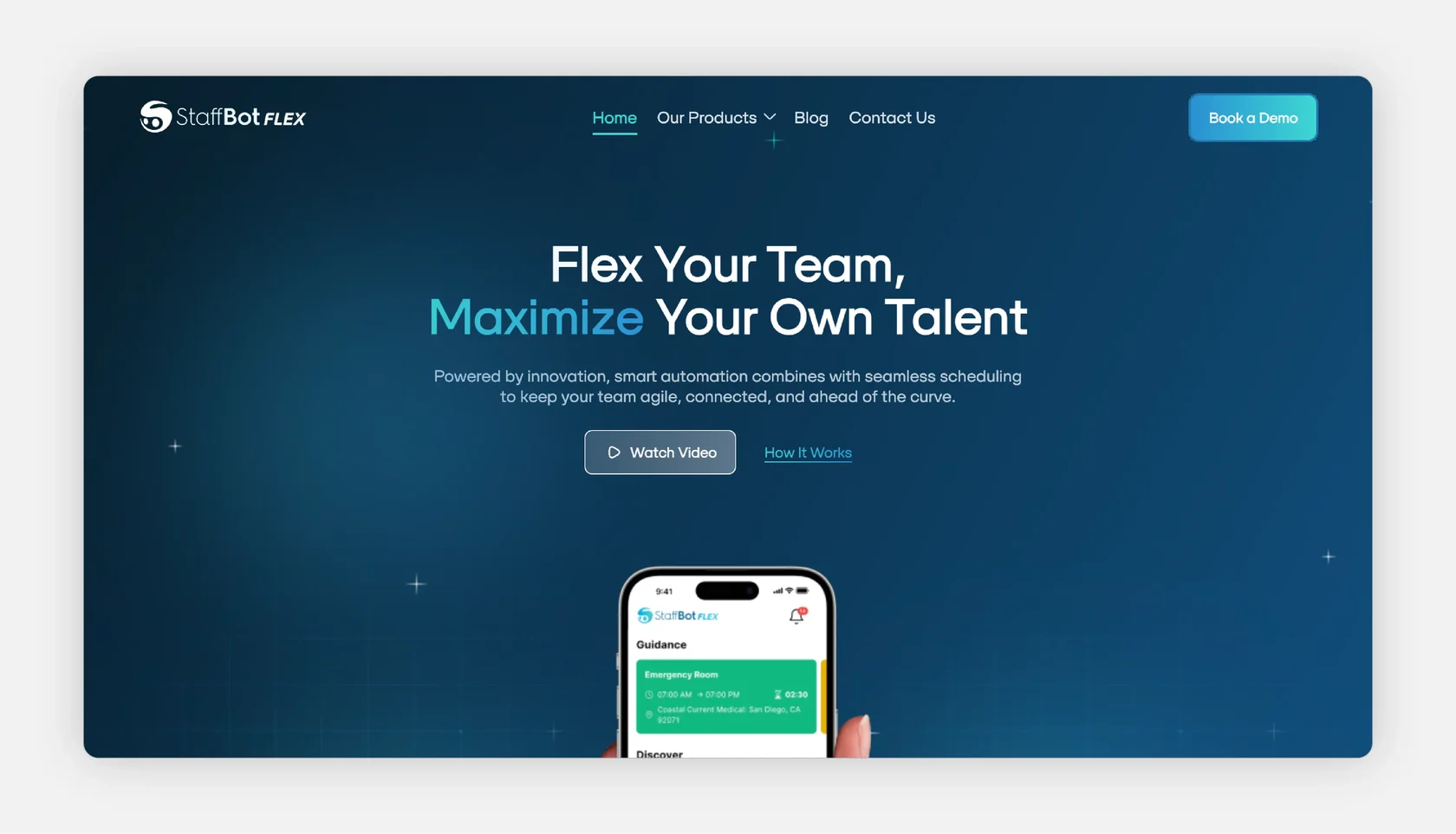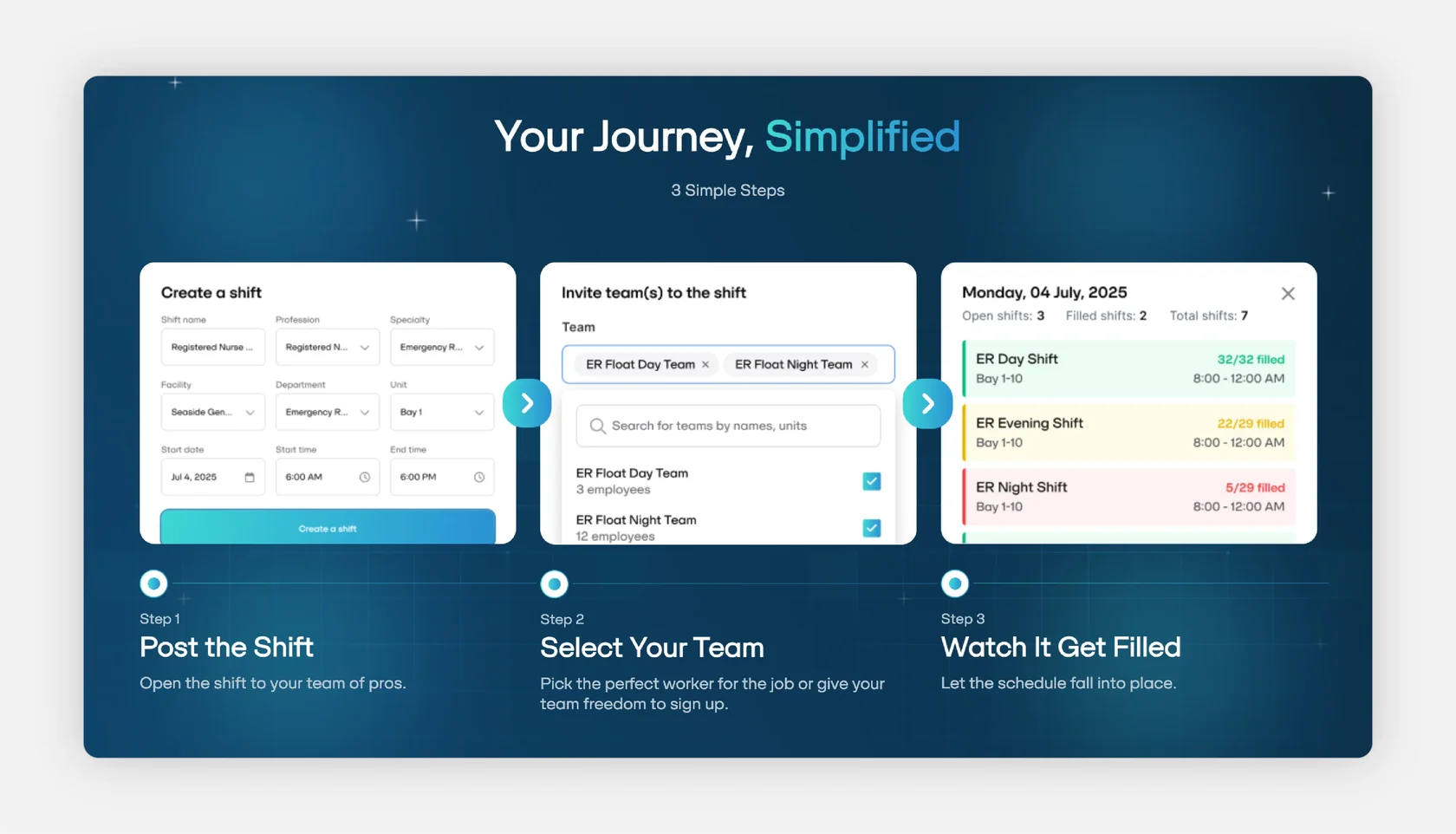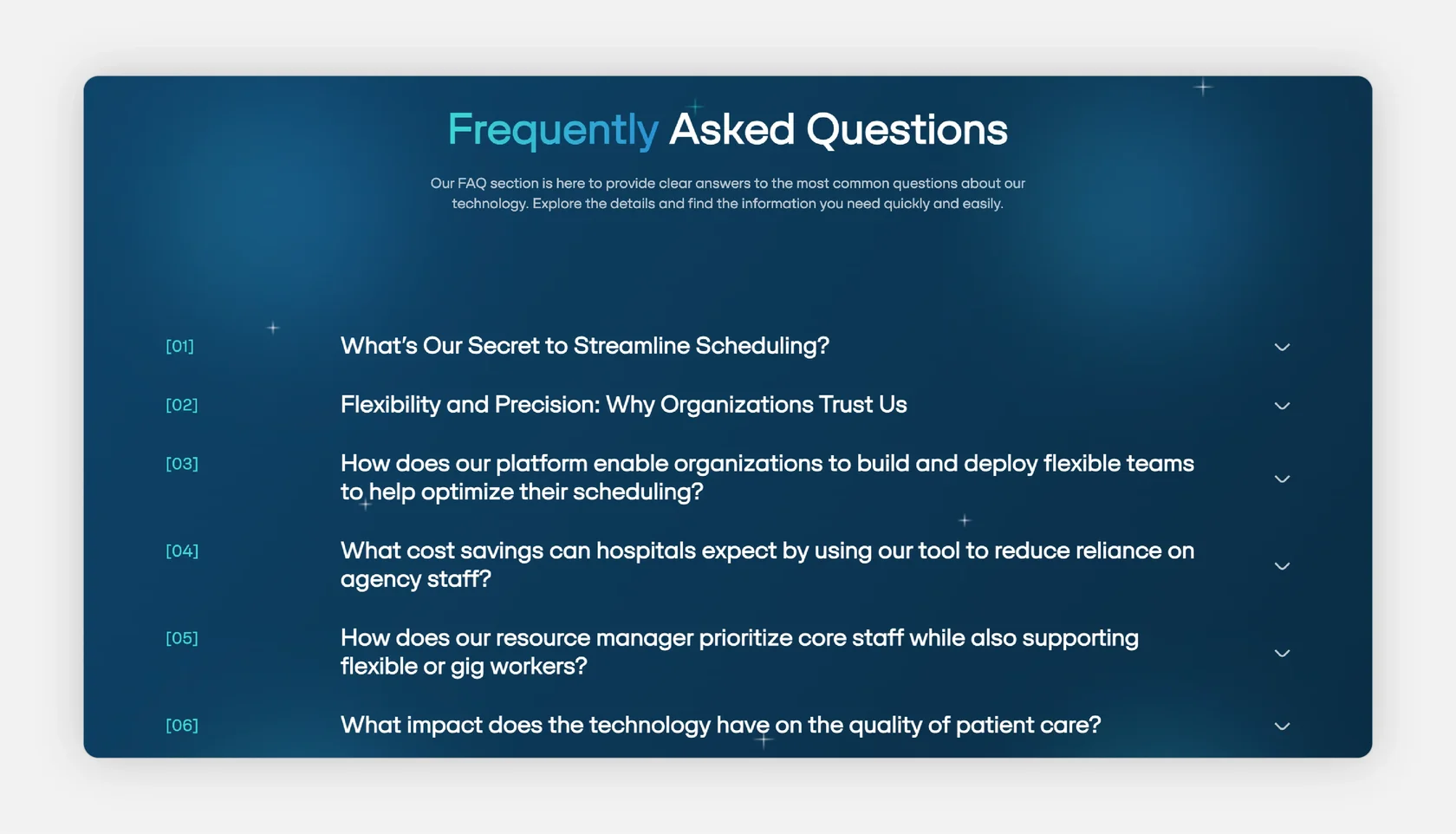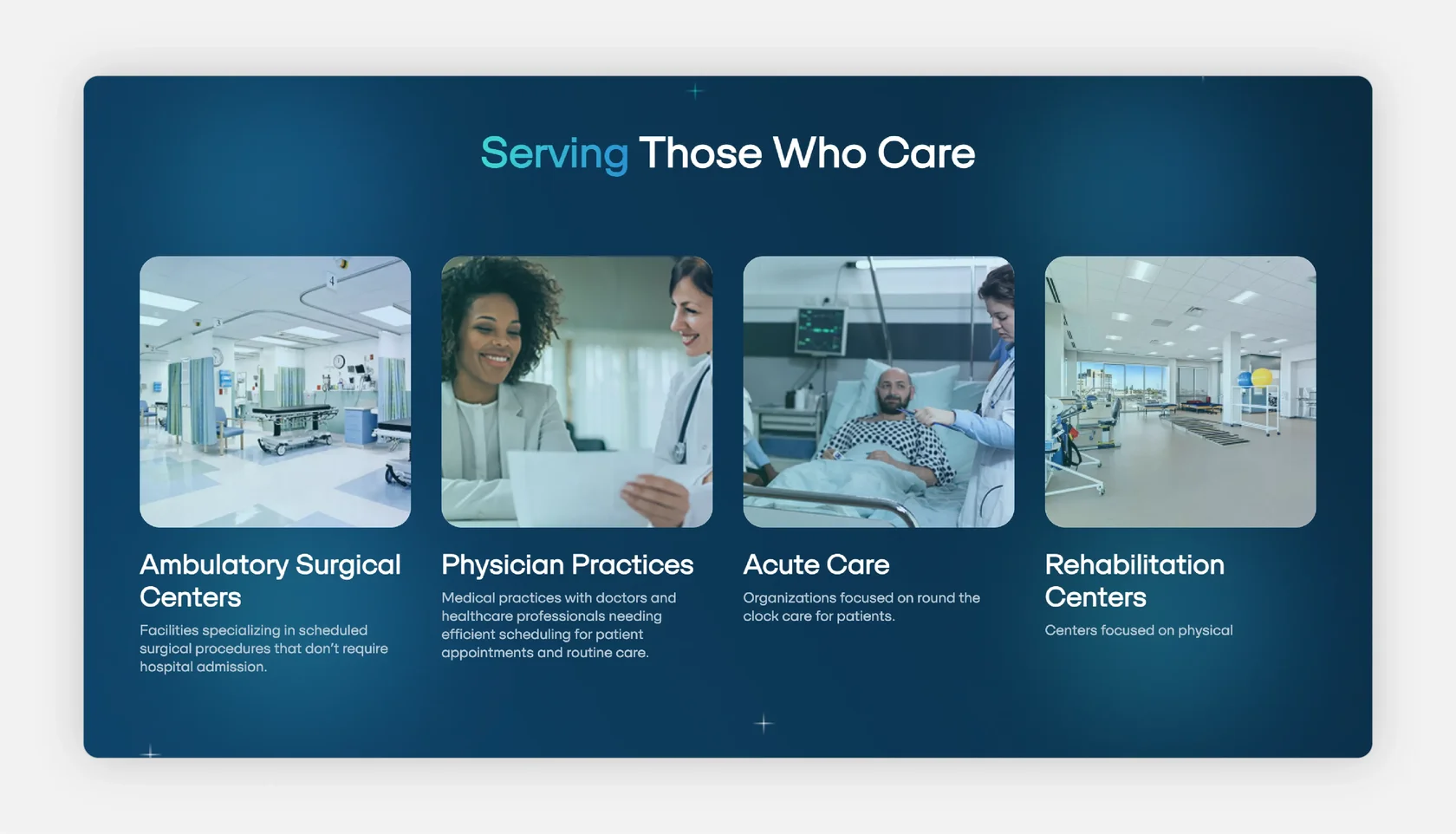
Staffbot Flex — Workforce Automation Platform
Font: SFT Schrifted Sans (Medium, DemiBold).
About the Project:
StaffBot Flex is a healthcare-focused platform designed to improve workforce coordination by helping organisations match internal teams to open roles, manage scheduling, and minimise reliance on external labour. The website presents key capabilities — such as internal staff pooling, assignment management, and streamlined communication — while outlining how the platform supports more flexible day-to-day operations in clinical environments.
Why SFT Schrifted Sans?
SFT Schrifted Sans is used throughout the interface to create a structured, dependable tone aligned with the platform’s operational focus. Its clear, balanced forms support easy scanning of key information, from role-matching details to workflow descriptions, helping reinforce the platform’s emphasis on clarity, efficiency, and practical decision-making.